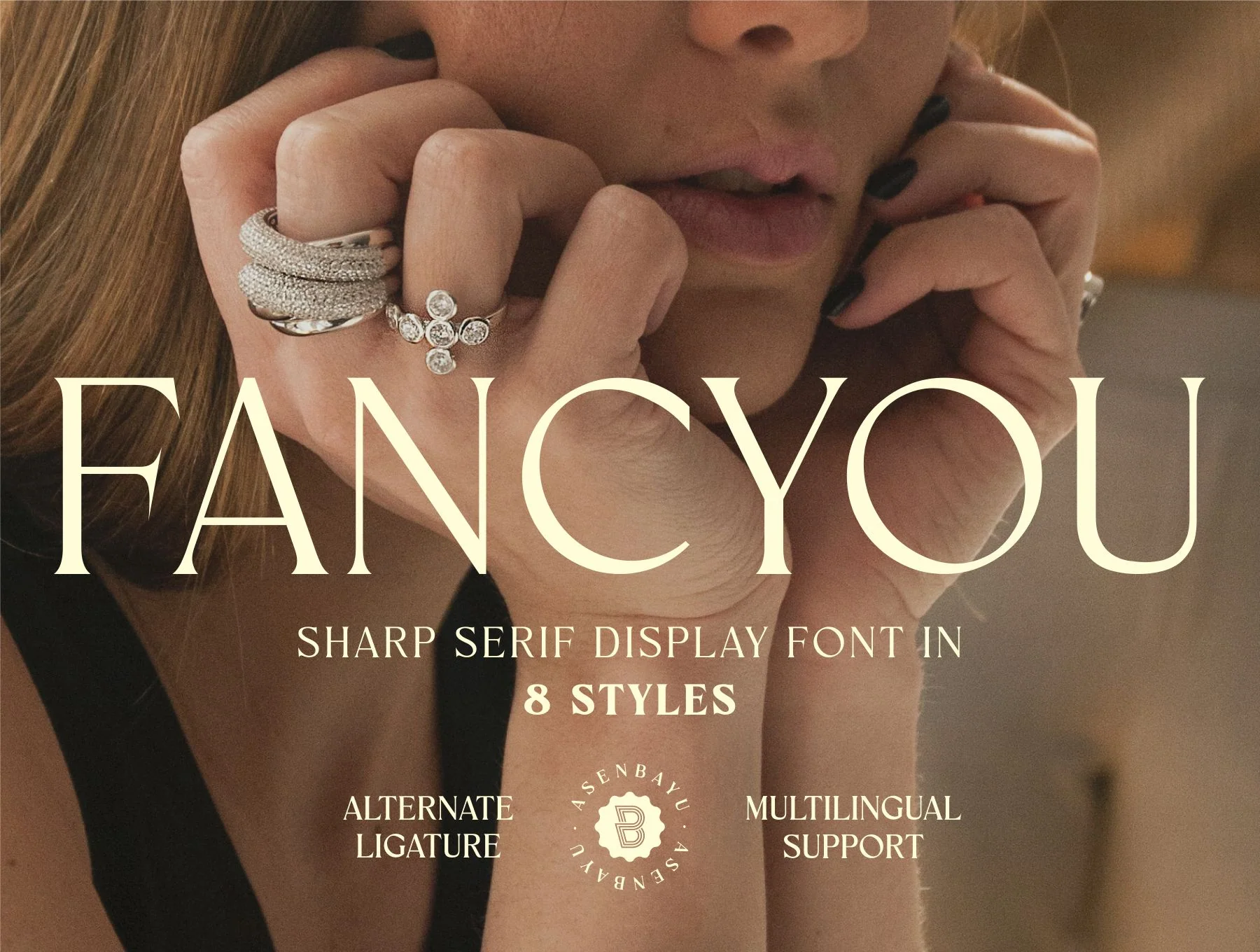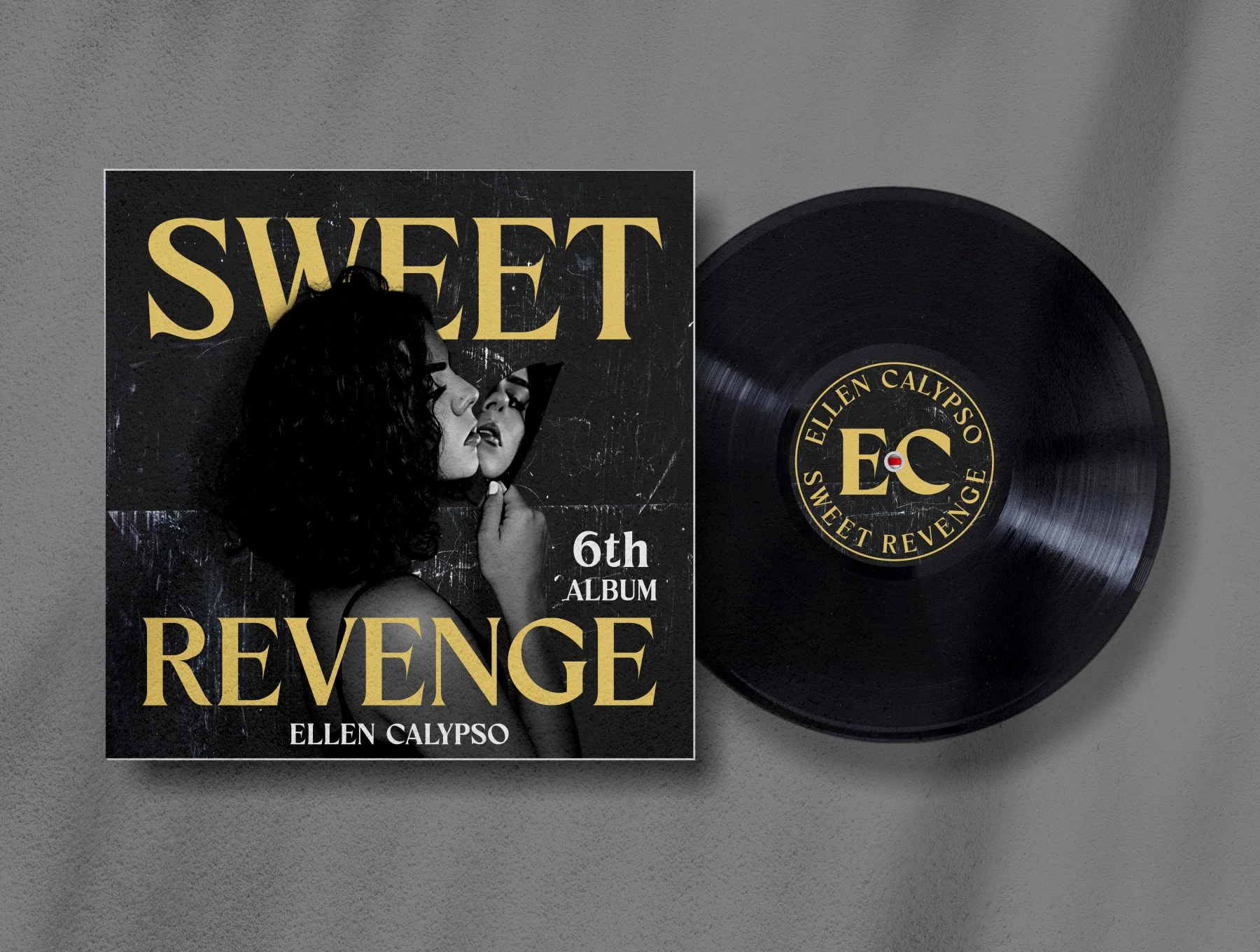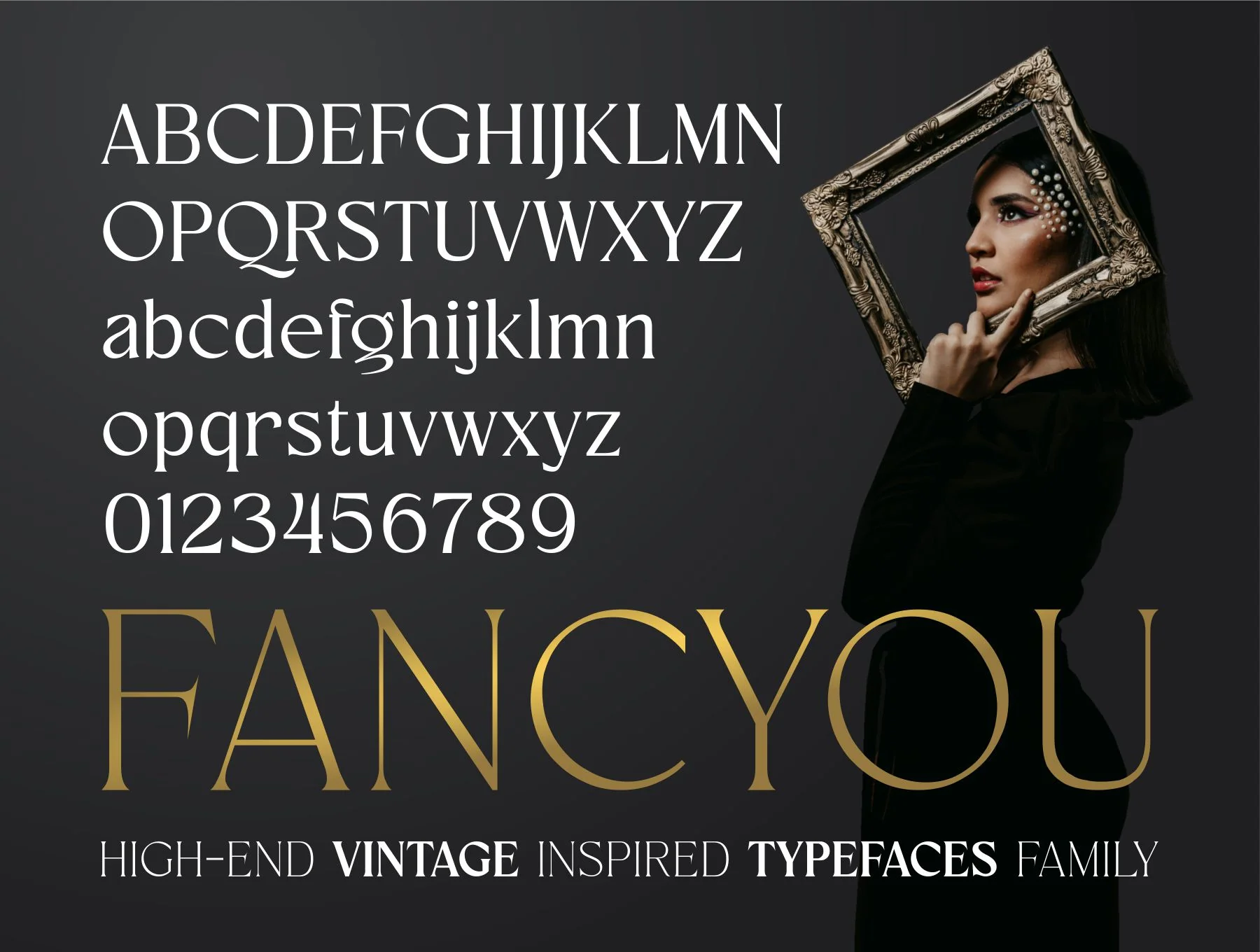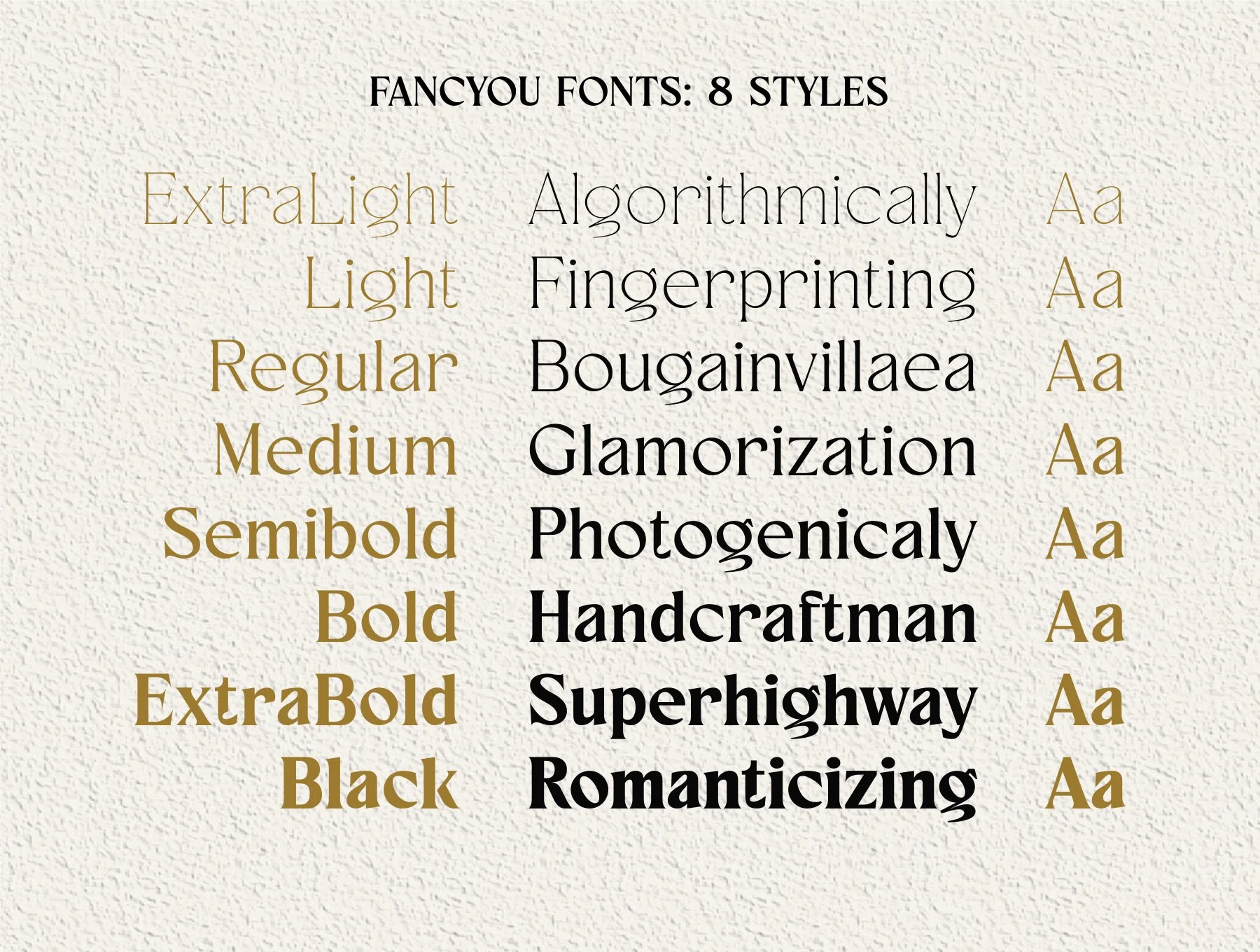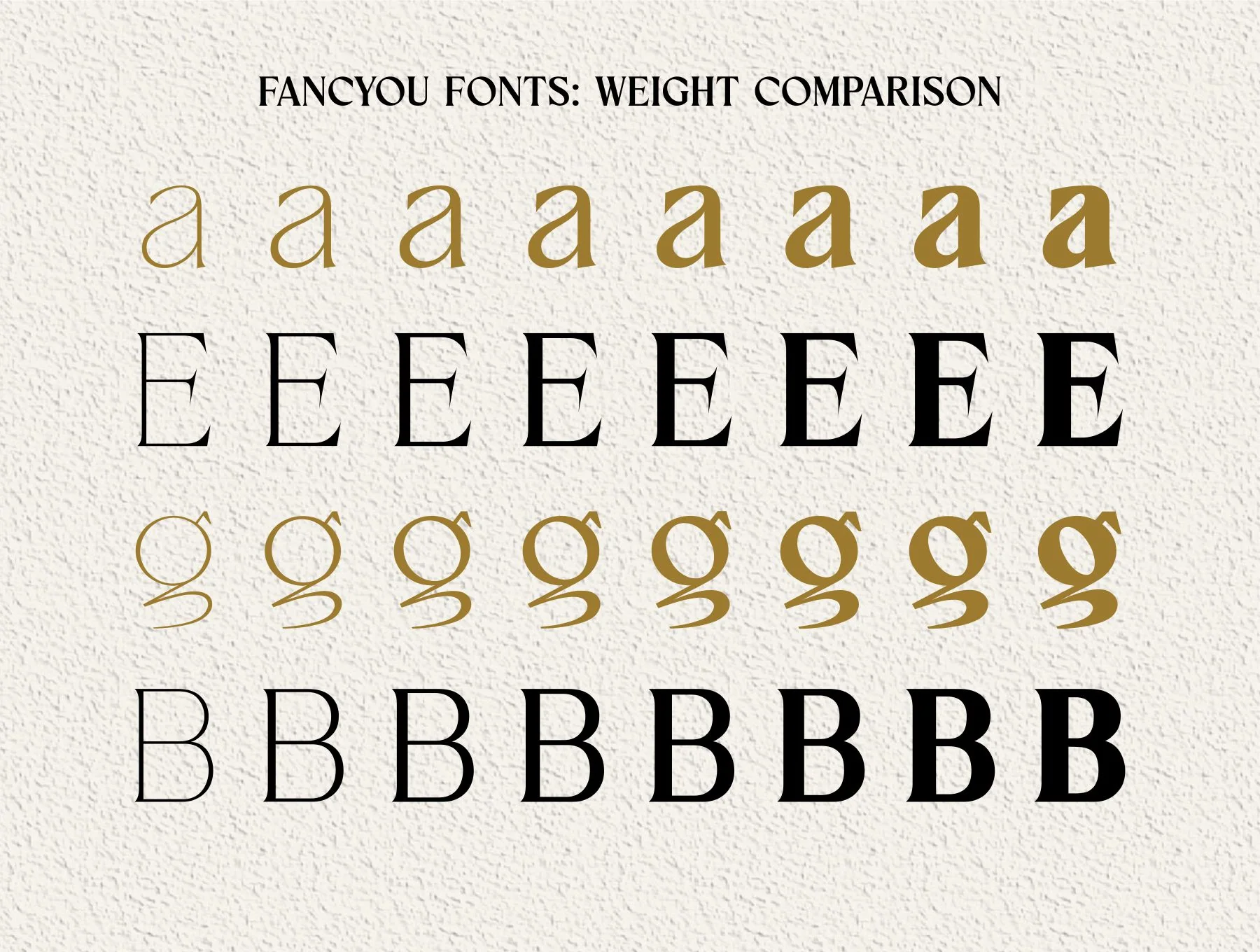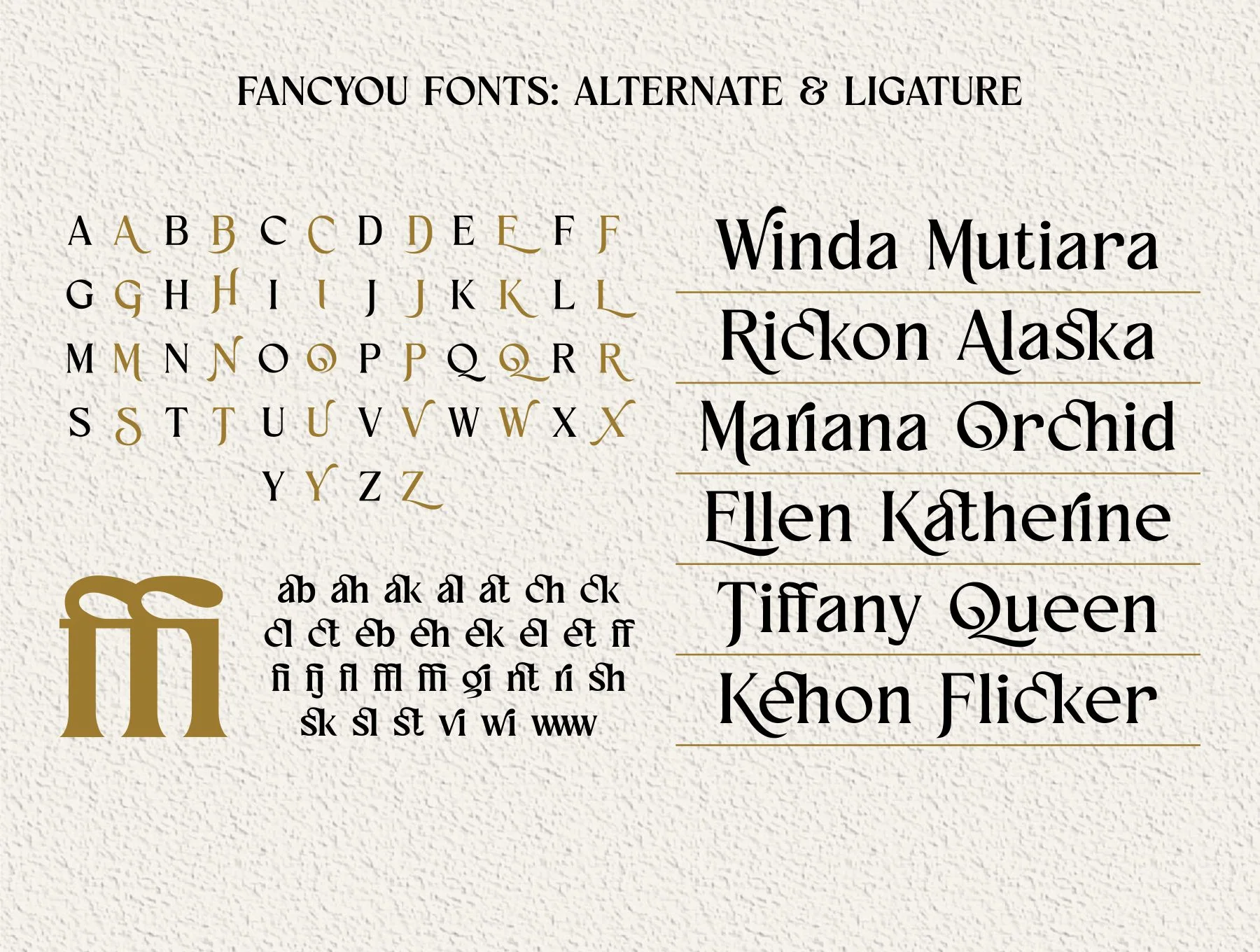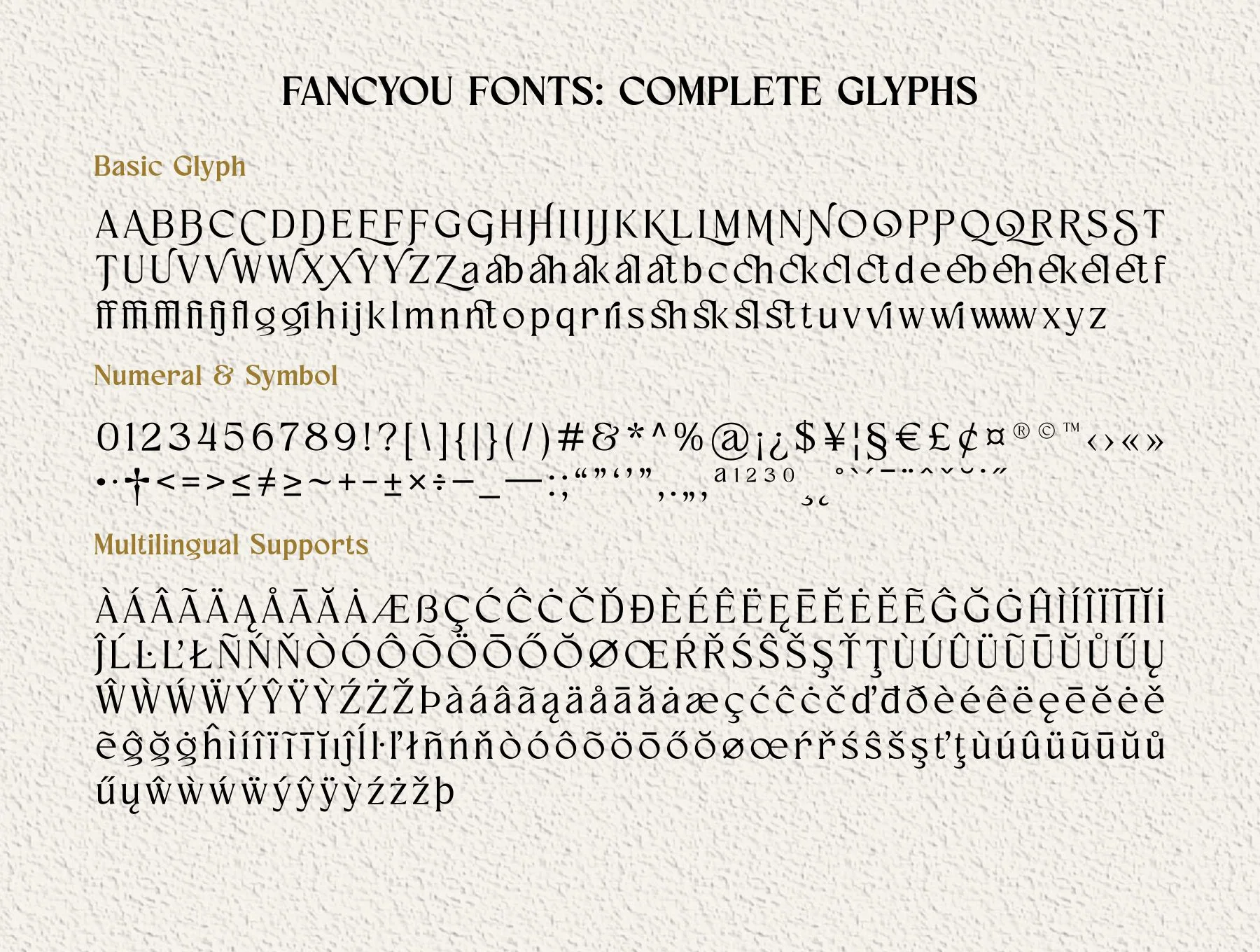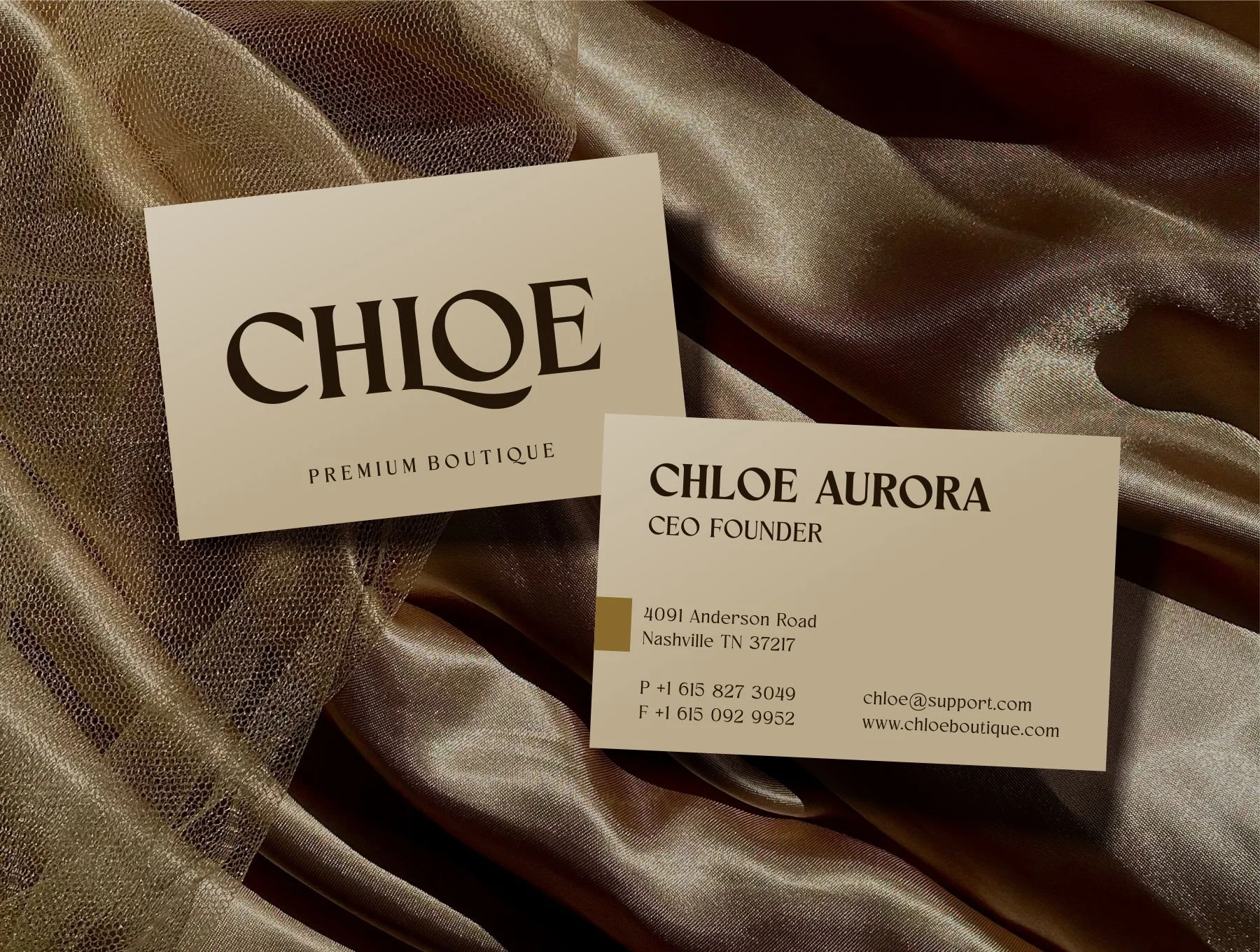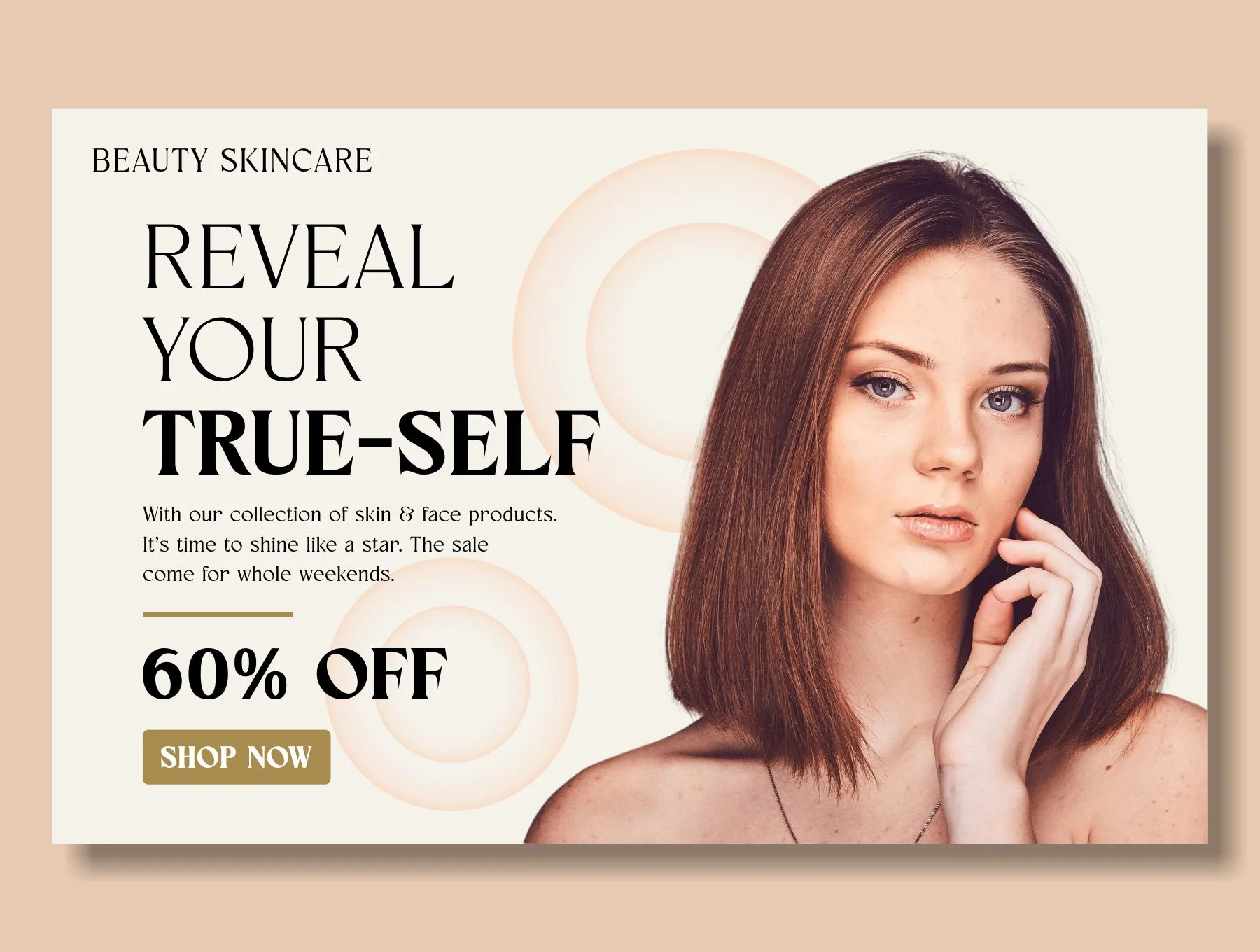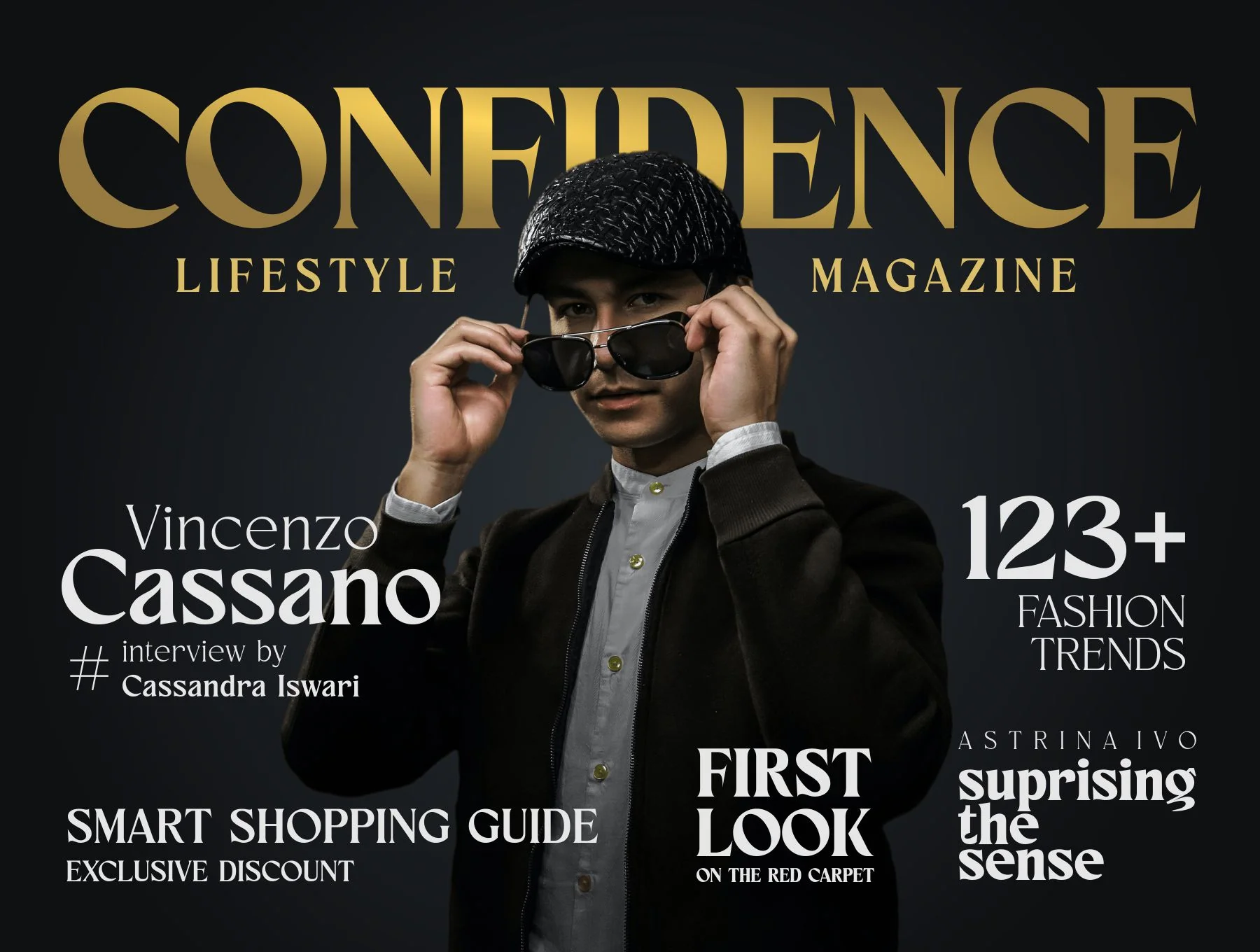
Fancyou Fonts Family
Pointed Serif Display Typeface with 8 Variants
Eight type styles
Default character form
Alternate styling and ligatures
Numbers and punctuation
Fancyou is an elegant serif family with vintage charm and contemporary proportions, offered in 8 weights from Extra Light to Black. Its crisp serifs add a stylish edge, ideal for logos, branding, magazines, cards, posters, websites, and more. Includes OTF files, kerning, ligatures, uppercase alternates, numerals, symbols, and multilingual support.